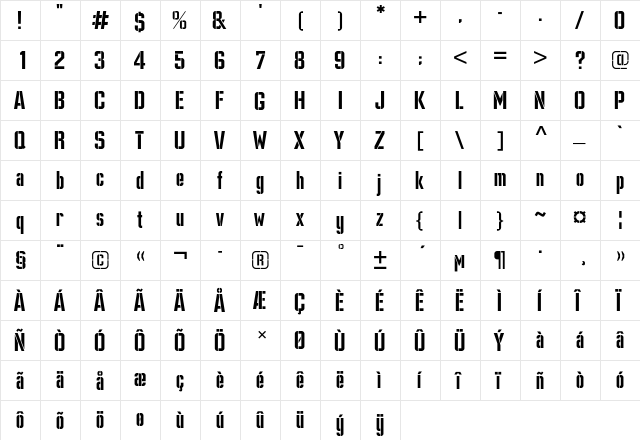
Danger Regular
| Foundry | Dmitry Greshnev |
| Designer | Dmitry Greshnev |
Design Context for Danger Typeface
Danger is a composed and adaptable typeface that performs quietly and consistently across a wide range of design contexts.
Pro Tip: Pair Danger with a font of contrasting weight or personality to build a more expressive typographic hierarchy.